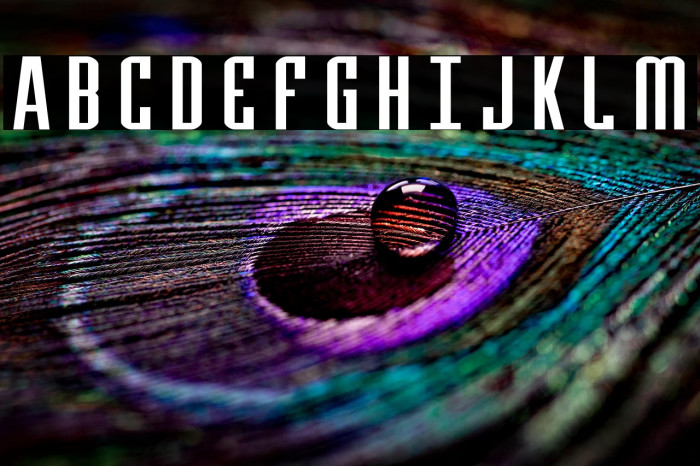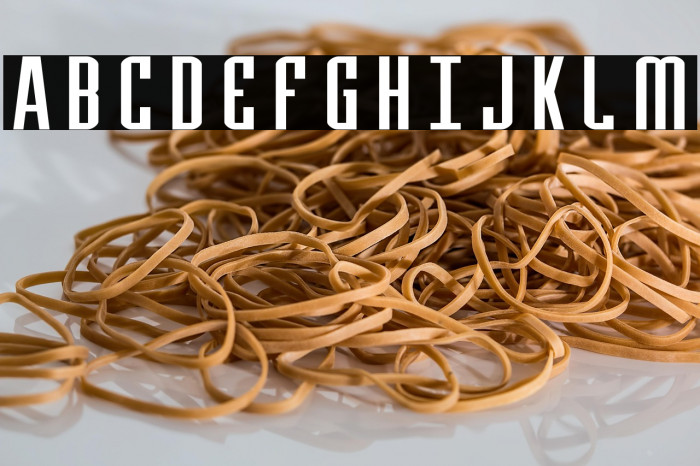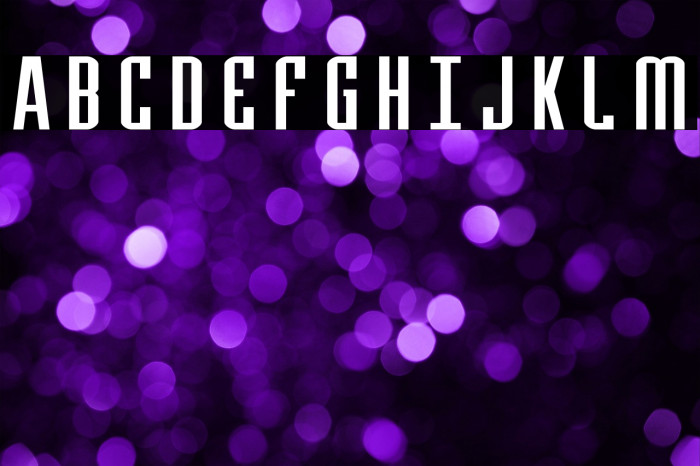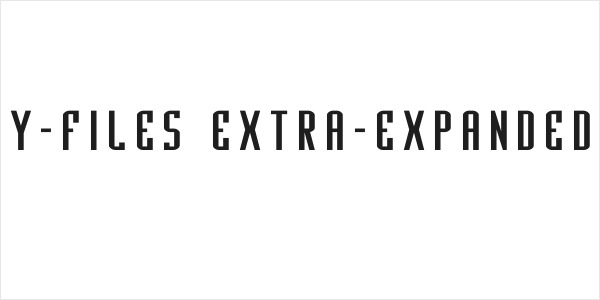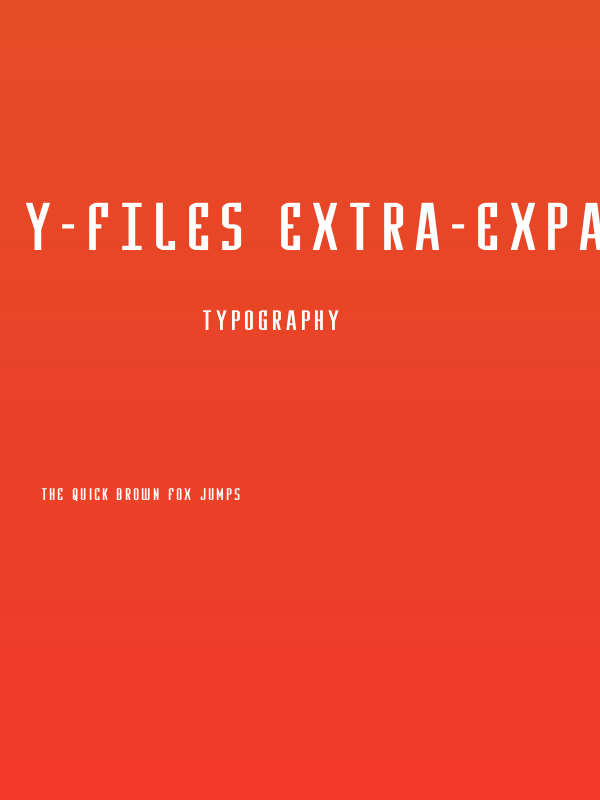
Y-Files Extra-Expanded Font
Y-Files Extra-Expanded Description
This font features a bold and striking design with elongated, narrow characters that create a sense of height and elegance. The uppercase letters are particularly tall and slender, with a geometric precision that gives them a modern and sophisticated appearance. The lowercase letters maintain this sleek aesthetic, ensuring consistency across the typeface. Numbers are equally tall and narrow, complementing the overall style. Special characters are designed with the same attention to detail, making them fit seamlessly with the rest of the font. The font's expanded width and uniform stroke weight contribute to its distinctive look, making it ideal for projects that require a strong visual impact.
| Proposed Projects | Ideal for headlines, posters, branding, and any design needing a strong, modern aesthetic. |